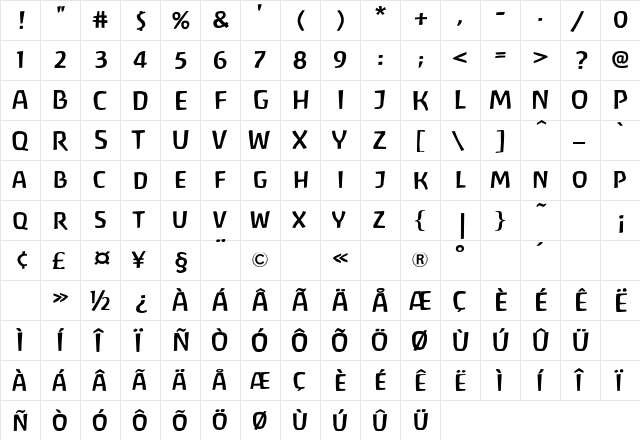
Baar Antropos Caps Regular
Design Context for Baar Antropos Caps Typeface
Baar Antropos Caps takes a measured approach to typography — its balanced proportions and neutral character make it a reliable workhorse for both digital and print work.